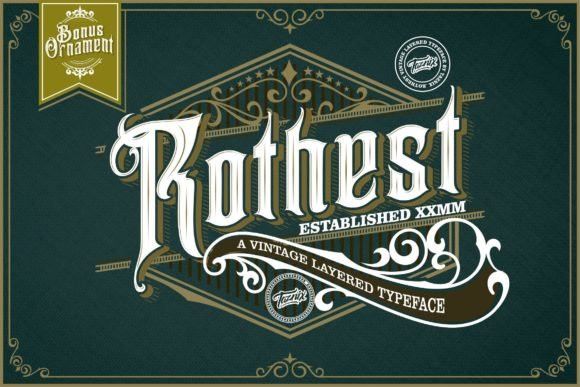
Rothest Font
Rothest is an elegant and classic blackletter font. Fall in love with its incredibly versatile style and use it to create spectacular designs!